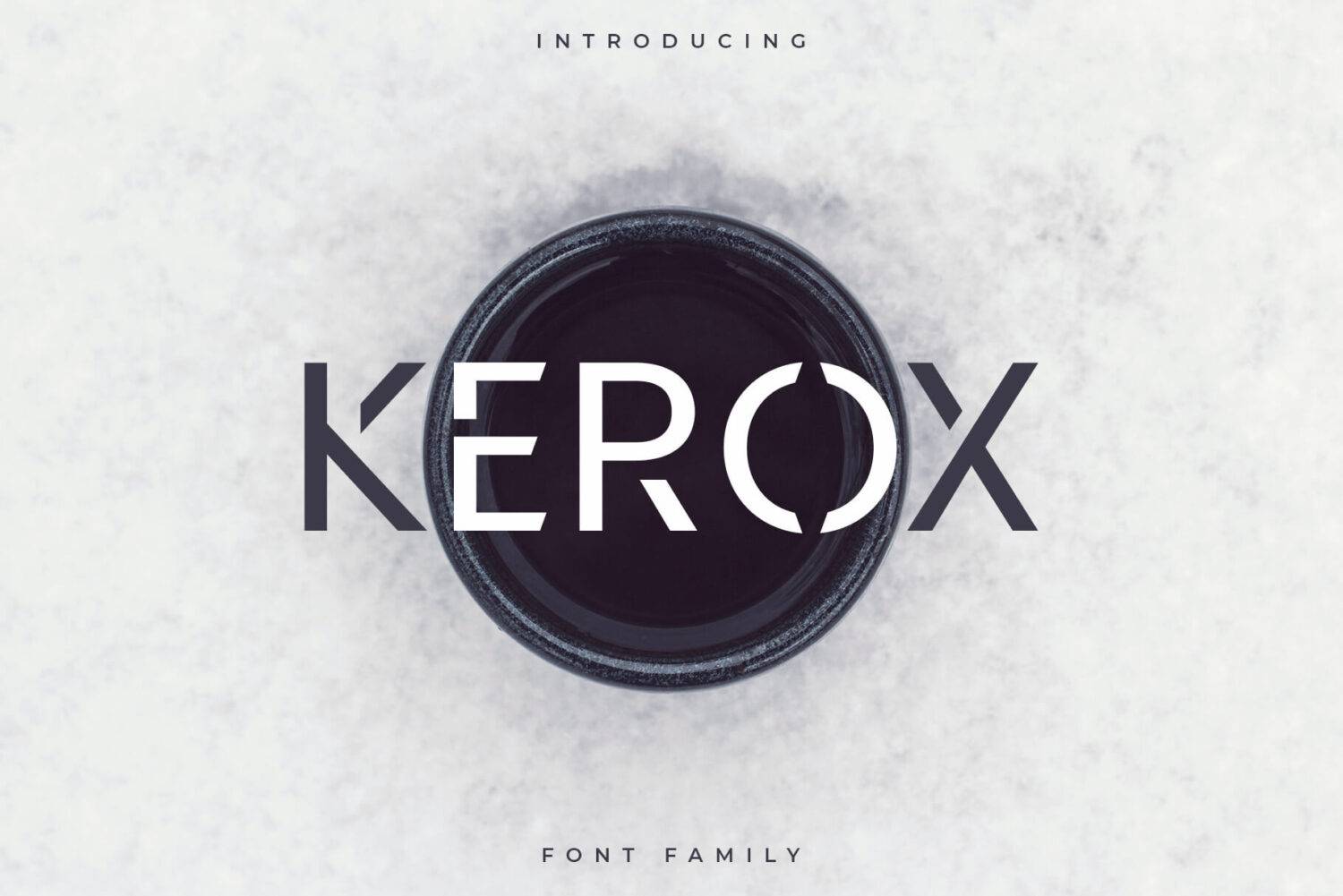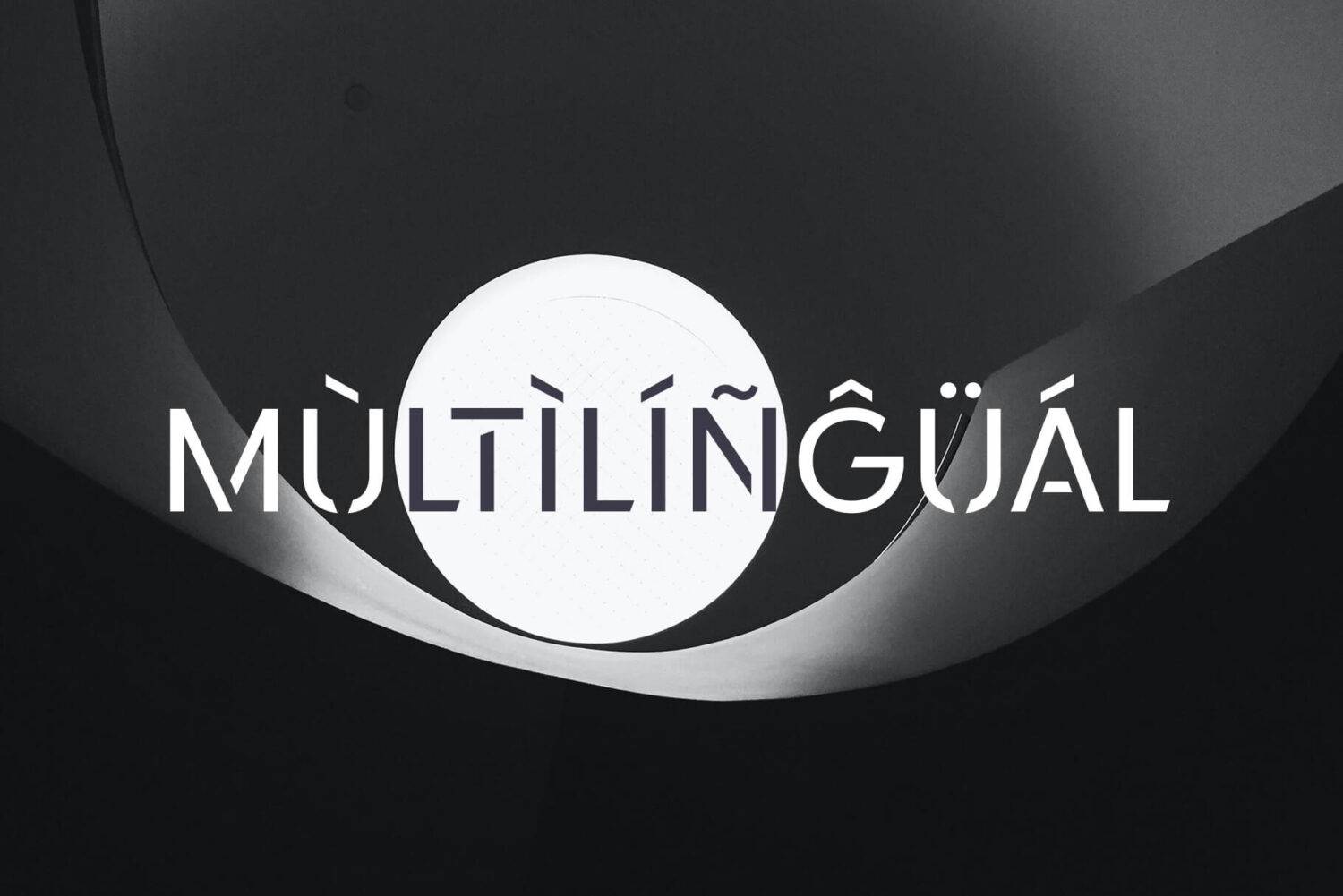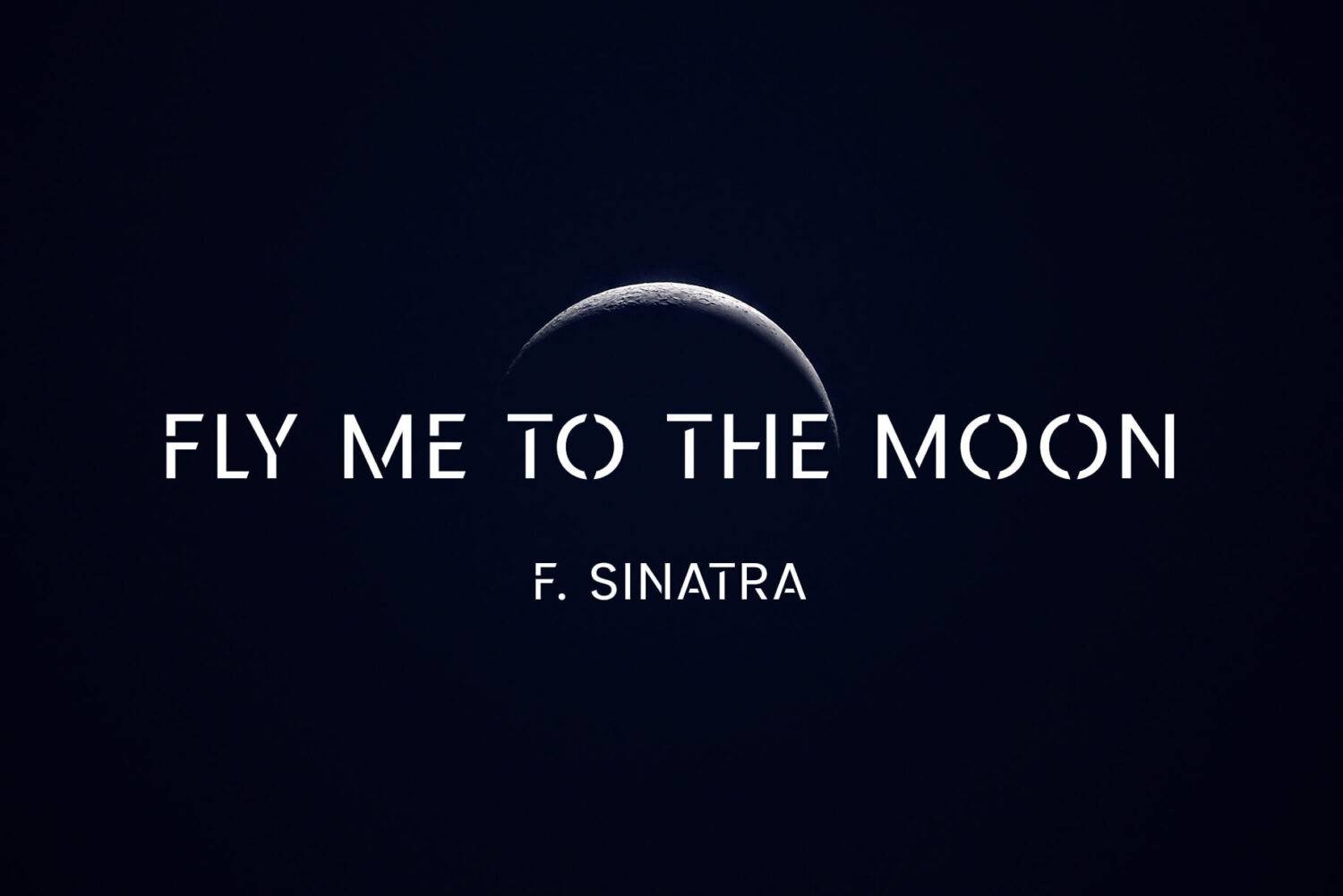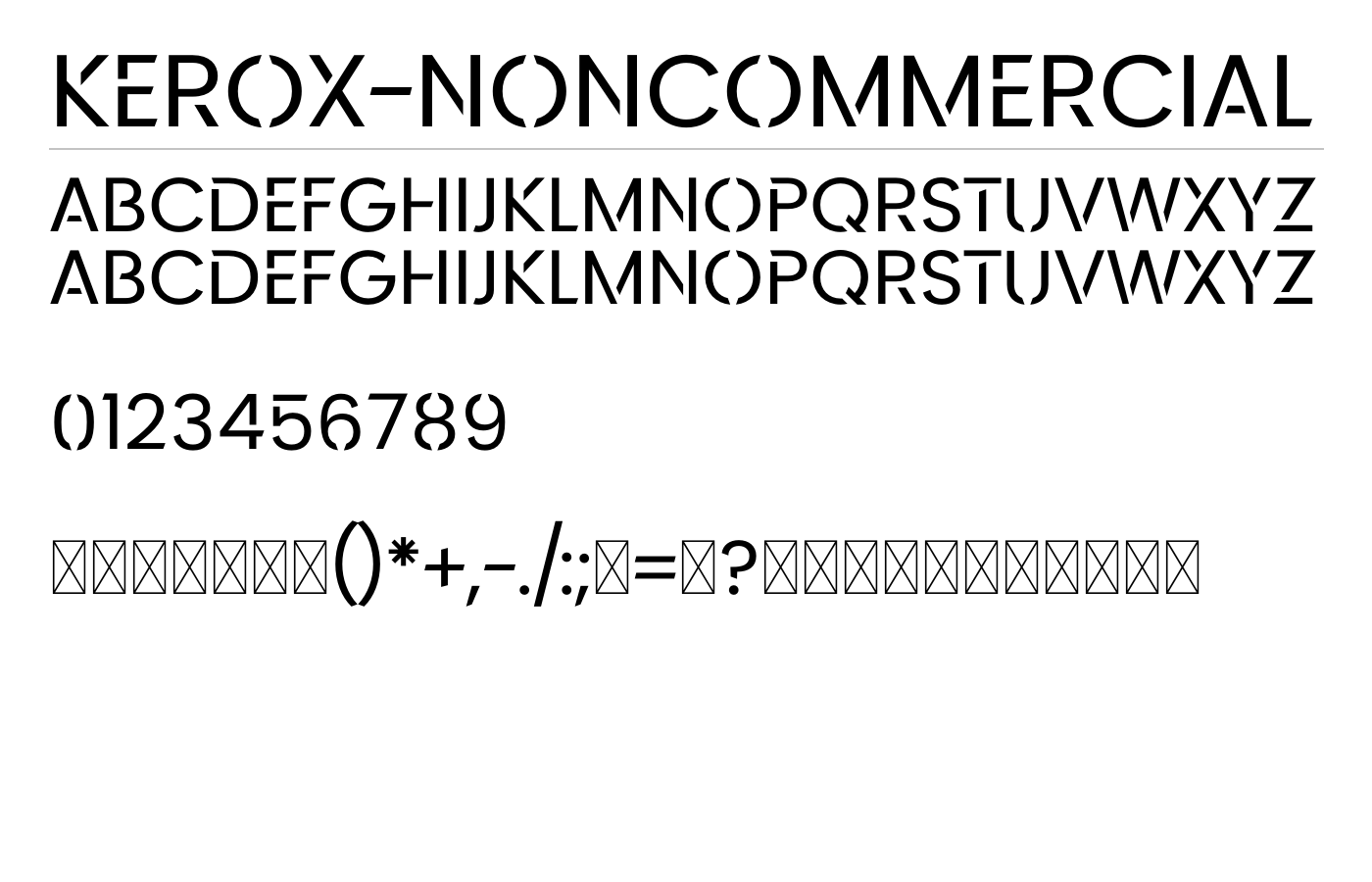
Kerox is a modern, geometric sans serif font characterized by its sharp angles and distinctive cut-out shapes within characters, giving it a futuristic and technical feel. With its clean lines, medium weight, and uniform width, it projects a bold yet elegant presence ideal for logos, headlines, and branding that seeks a contemporary, innovative look. This font is perfect for creative industries and tech-focused projects where a sleek, cutting-edge impression is desired.
Kerox Font Family
About Kerox Font Family